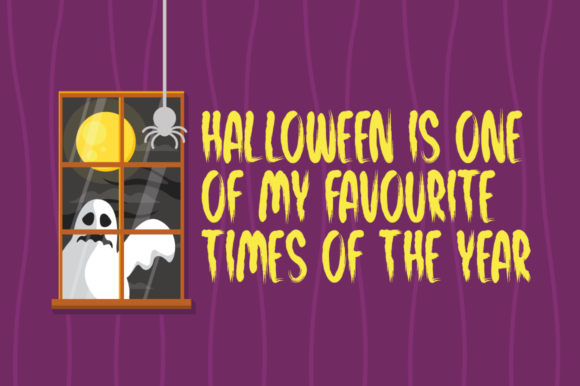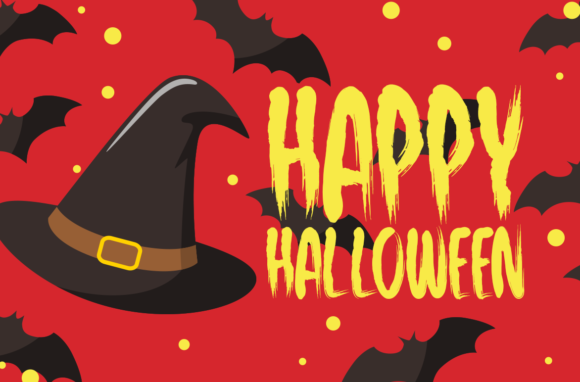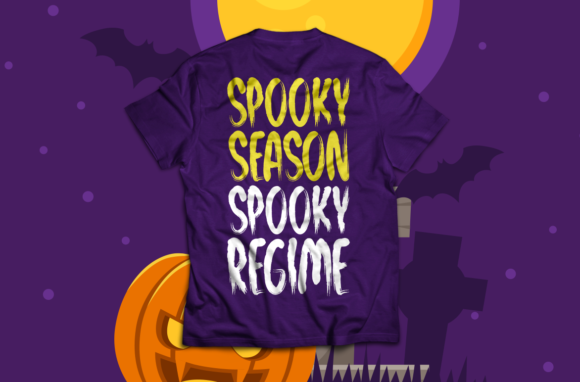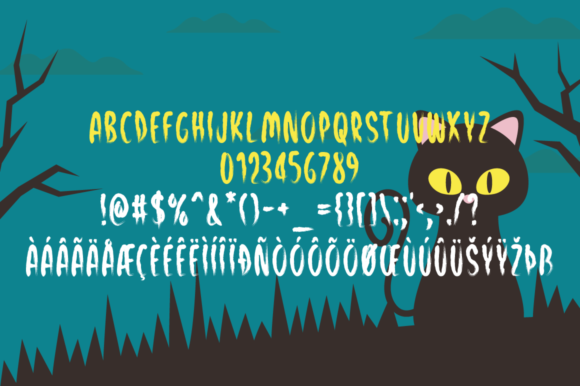
Introduction to Fearful House Font
Have you ever been brainstorming a creative project, and the perfect font eludes you? You know, that one element that makes your design pop and sets the tone for your entire message. For me, it’s that magical moment when I stumble upon a font that speaks to my creative vision. And that’s exactly what happened when I discovered the Fearful House Font.
This display script font is a game-changer, offering a unique, handwritten feel that’s reminiscent of marker board scribbles. With its high-quality design and transparent background, it’s the perfect design resource for adding a personal touch to your projects. Whether you’re creating greeting cards, invitations, or motivational quotes, the Fearful House Font is sure to help you express your message in a way that feels authentic and engaging.
Key Features of Fearful House Font
- High-quality design resource perfect for creative projects requiring a spooky atmosphere.
- Features a transparent background for easy integration into designs.
- Includes a range of glyphs and characters to create unique and creative typography.
- Unique characteristics include a distressed and eerie feel, making it perfect for Halloween-themed designs and creative projects.
Honest Review: Fearful House Font
I recently stumbled upon the Fearful House Font while searching for a unique design resource for my next creative project. The moment I laid eyes on it, I was drawn to its quirky and eerie vibe. The free download option was a major plus, as it allowed me to experiment with the font without committing to a purchase.
What works well is the font’s versatility. It’s perfect for creating a spooky atmosphere in a design or adding a touch of whimsy to a project. The high-quality design ensures that it looks great on a variety of backgrounds, including transparent backgrounds.
- Unique and quirky design
- Perfect for creating a spooky atmosphere
- Works well on transparent backgrounds
However, I did encounter some limitations. The font may not be suitable for all design projects, as it’s quite bold and attention-grabbing. Additionally, some users may find the font’s design too simplistic.
Overall, I’m impressed with the Fearful House Font and would definitely recommend it to designers looking for a unique and high-quality design resource. Just be mindful of its limitations and use it in projects where it will shine.
Tips for Getting the Most Out of Fearful House Font
To get the most out of Fearful House Font, use it in conjunction with a transparent background to create a unique and eye-catching design. Experiment with different font sizes and styles to add depth and interest to your project. You can also pair Fearful House Font with other design resources, such as graphics and images, to create a cohesive and engaging visual identity.
Common Use Cases for Fearful House Font
Fearful House Font is a versatile design resource that can be used in a variety of creative projects, including logos, posters, and social media graphics. It’s also a great choice for designers who want to create a spooky or eerie atmosphere in their designs. With its high-quality design and transparent background, Fearful House Font is a great addition to any design library.
Q: What are the technical specifications of the Fearful House Font?
The Fearful House Font is a high-quality, vector-based font with a range of 100 glyphs. It supports a wide range of languages, including English, Spanish, French, and many others. The font’s technical specifications include a maximum font size of 1000px and a minimum font size of 8px.